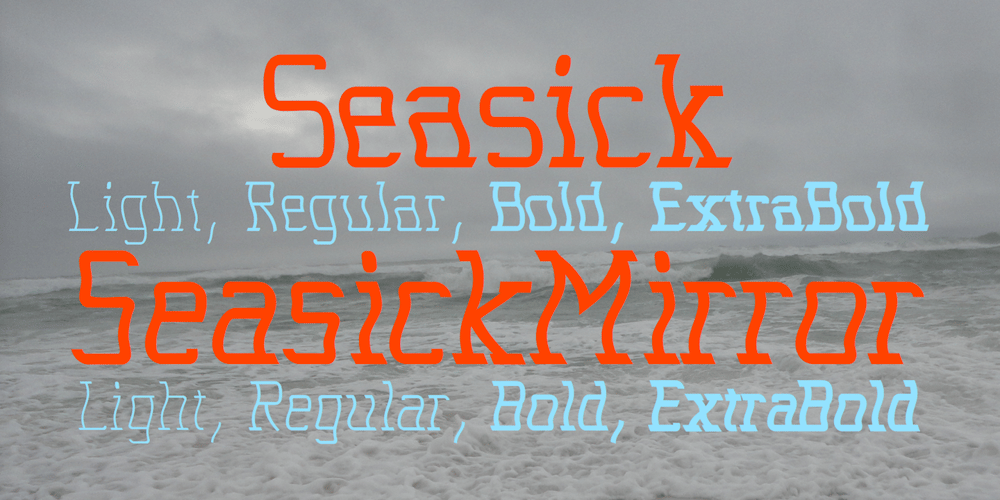
Seasick
Seasick font
Seasick Font Family was designed by Robert Schenk and published by Ingrimayne Type. Seasick contains 8 styles and family package options. Seasick and Seasick-Mirror features wobbly, wavy, distorted letters. They were derived from the almost monoline font Kwersity. The letters of Seasick have a slight backward slant and the letters of SeasickMirror have a slight forward slant. Each of them comes in four weights: Light, Regular, Bold, and ExtraBold.